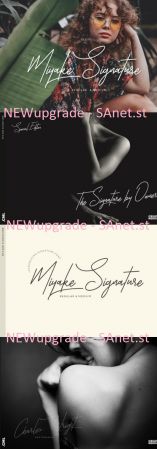
Miyake is handwritten script font, It comes 2 style Regular & Medium, in a single style with over 225 glyphs including stylistic set. Best for wedding quotes, photography copyright, wedding letter, life quotes, love quotes and more.